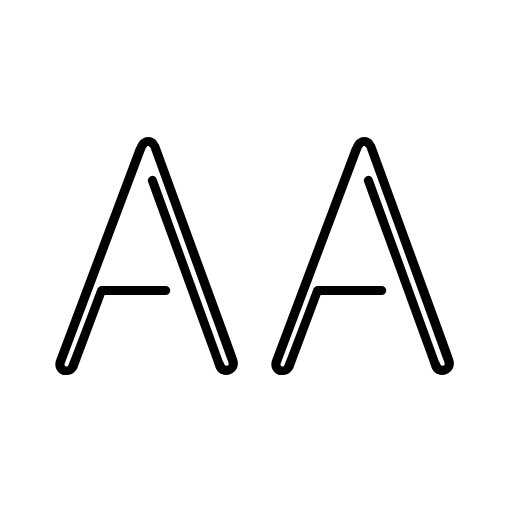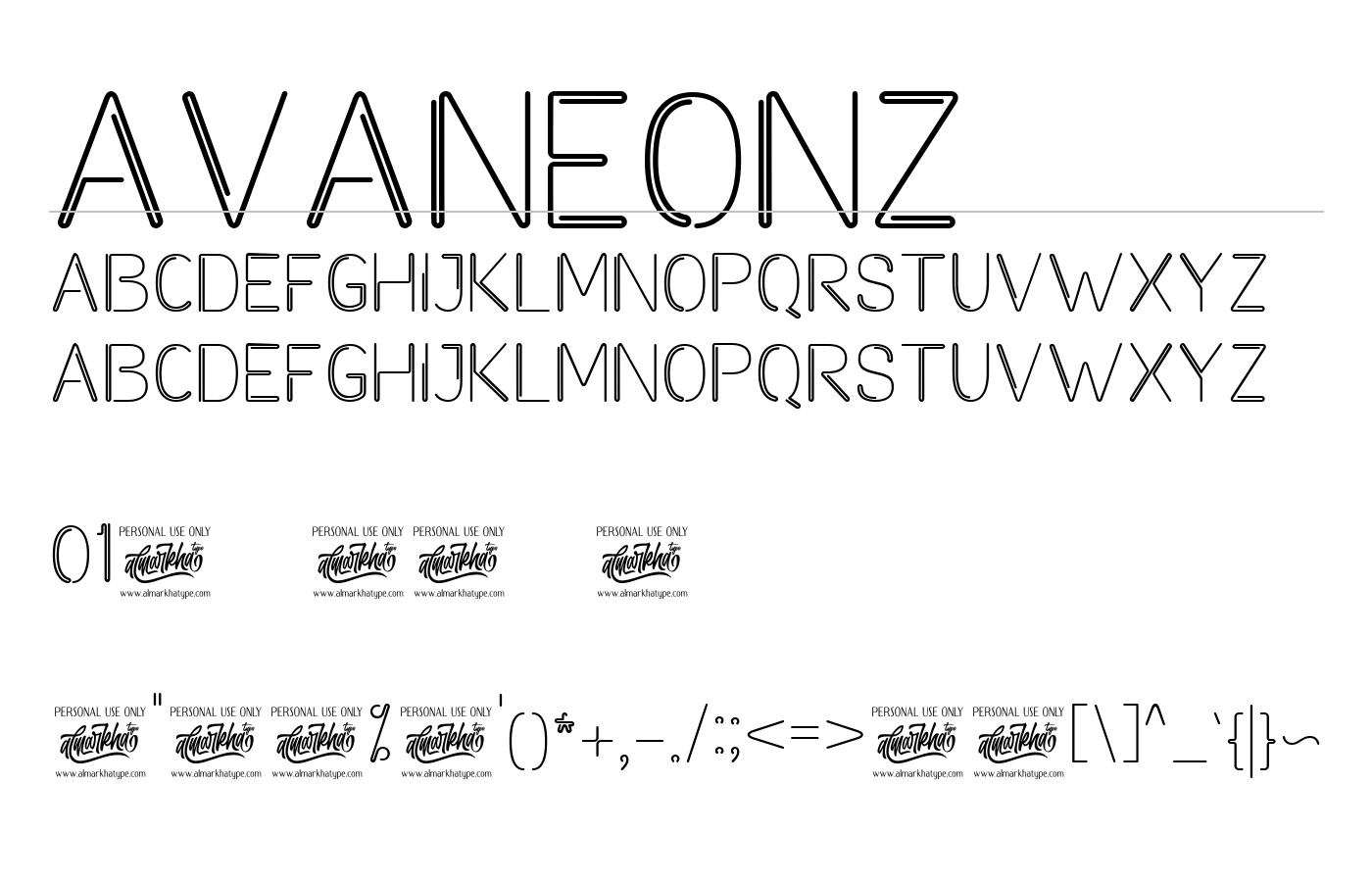
Avaneonz is a modern, sleek sans serif font with a unique double-line stroke design that gives it a futuristic and artistic feel. Its tall, narrow letterforms and consistent light weight make it perfect for stylish headlines, logos, and creative branding that aim to capture attention with a clean yet distinctive look. This font works especially well in digital and fashion contexts where a contemporary and cutting-edge impression is desired.
Avaneonz Font
About Avaneonz Font
| Font family | Avaneonz Font |
| Designer | Almarkhatype 2020 - Abdul Malik - Adriansyah |